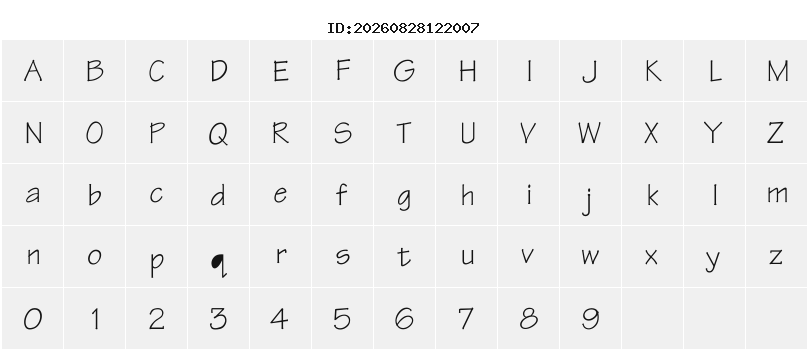
Tontil Preview
• Font Name: Tontil
• Font ID: ALLTYPE:Tontil Regular:ATECH
• Full Font Name: Tontil
• PostScript Name: Tontil
About Tontil.ttf
Tontil.ttf is a modern, elegant sans-serif font designed for ultimate readability and visual harmony. Perfect for branding, headlines, web design, and print materials.